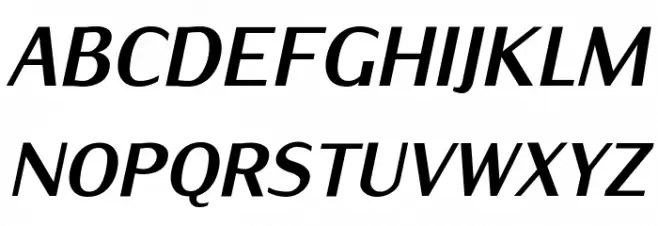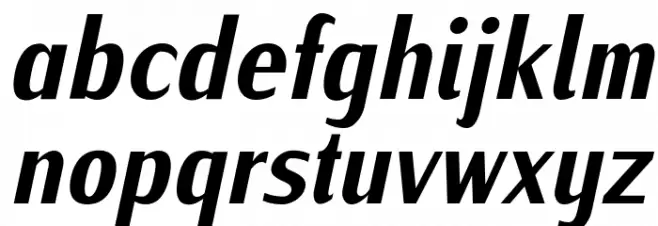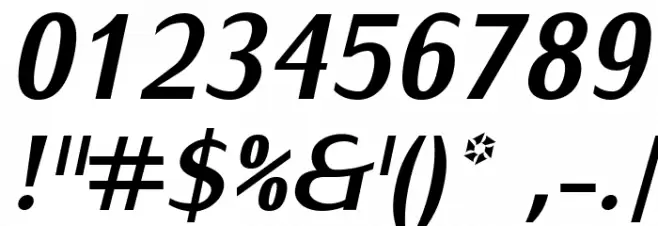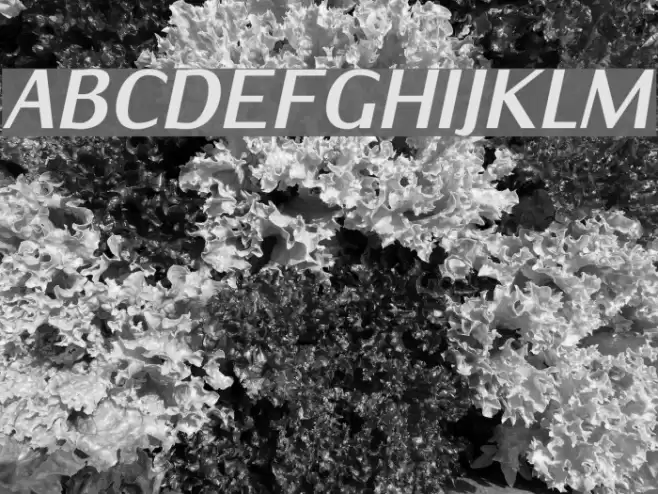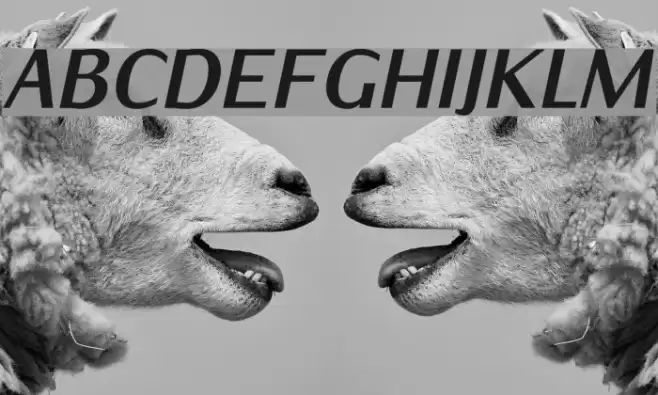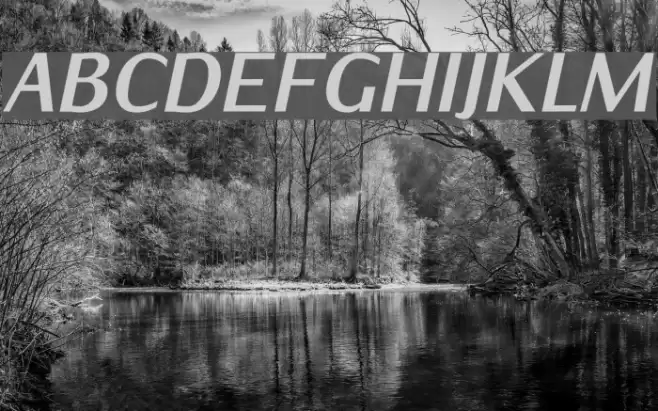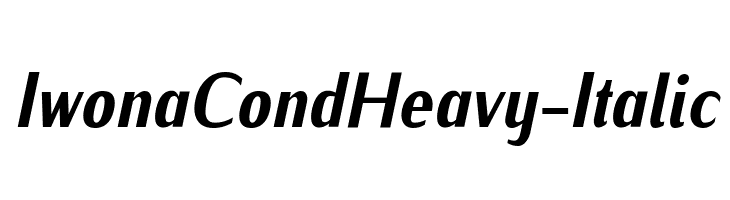
IwonaCondHeavy-Italic
This font features a bold and italicized style with a condensed width, offering a strong and dynamic presence. The characters are designed with a slight slant, enhancing the italic effect and providing a sense of movement. The strokes are thick, contributing to the heavy appearance, while maintaining a clean and modern aesthetic. The spacing between characters is moderately tight, ensuring readability while maximizing space efficiency. This font is versatile, suitable for various design needs where a bold statement is required.
A bold, italic, and condensed font with a modern and dynamic style.
- Proposed Projects: Ideal for headlines, posters, branding, and advertising where a strong impact is needed.
- Width: Condensed
- Character Spacing: Tight
- Use Case: Headlines, Logos, Posters